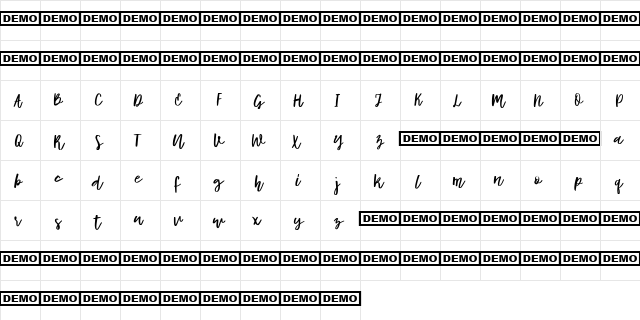
Syberic Regular
Design Context for Syberic Typeface
Syberic is a composed and adaptable typeface that performs quietly and consistently across a wide range of design contexts.